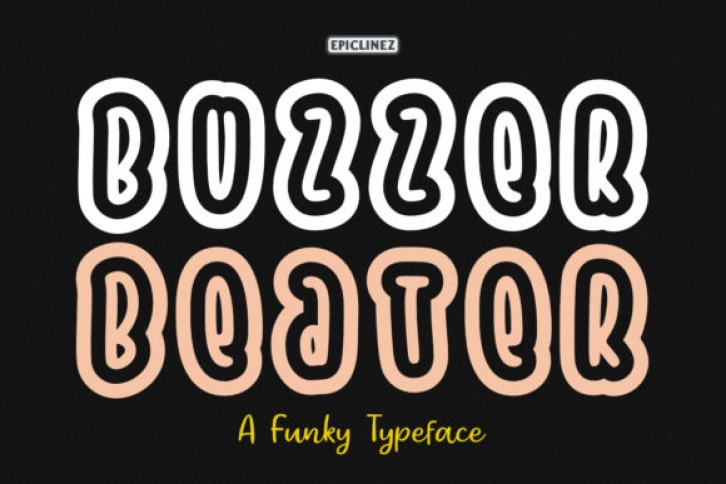
Buzzer Beater is a playful display typeface. Its funky style will look truly outstanding in a wide range of contexts. Use it to add a touch of quirk to any creative idea.